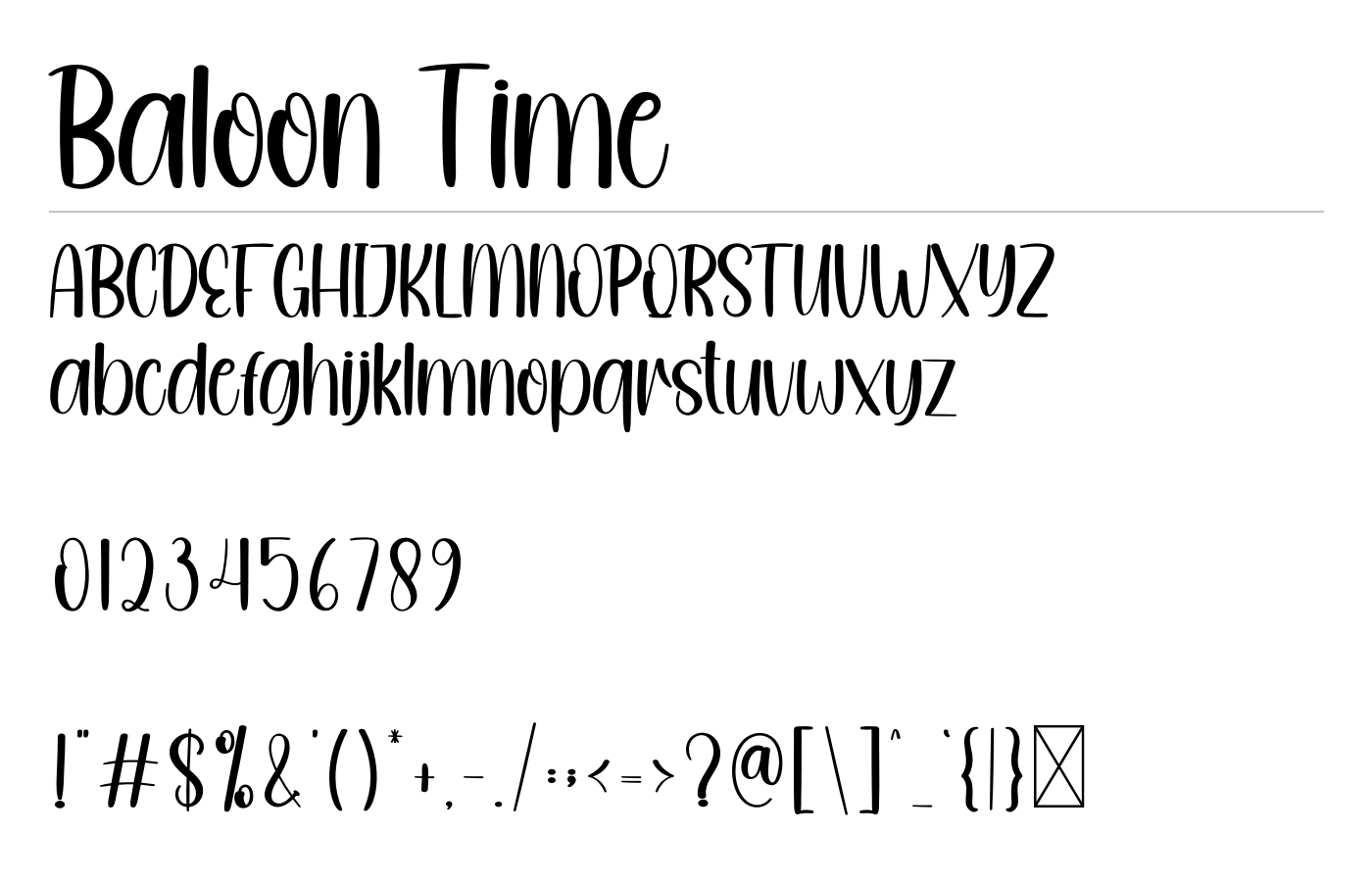
Baloon Time is a playful and friendly handwritten sans serif font characterized by its tall, narrow letterforms and smooth, rounded strokes. Its light weight and quirky, slightly irregular shapes give it an informal, whimsical feel, making it perfect for cheerful branding, children’s designs, and casual invitations. This font works well in headlines and decorative uses where a personal, approachable touch is desired.
Baloon Time Font
About Baloon Time Font